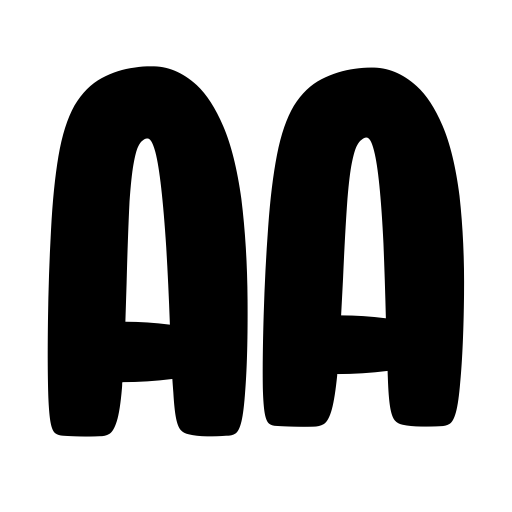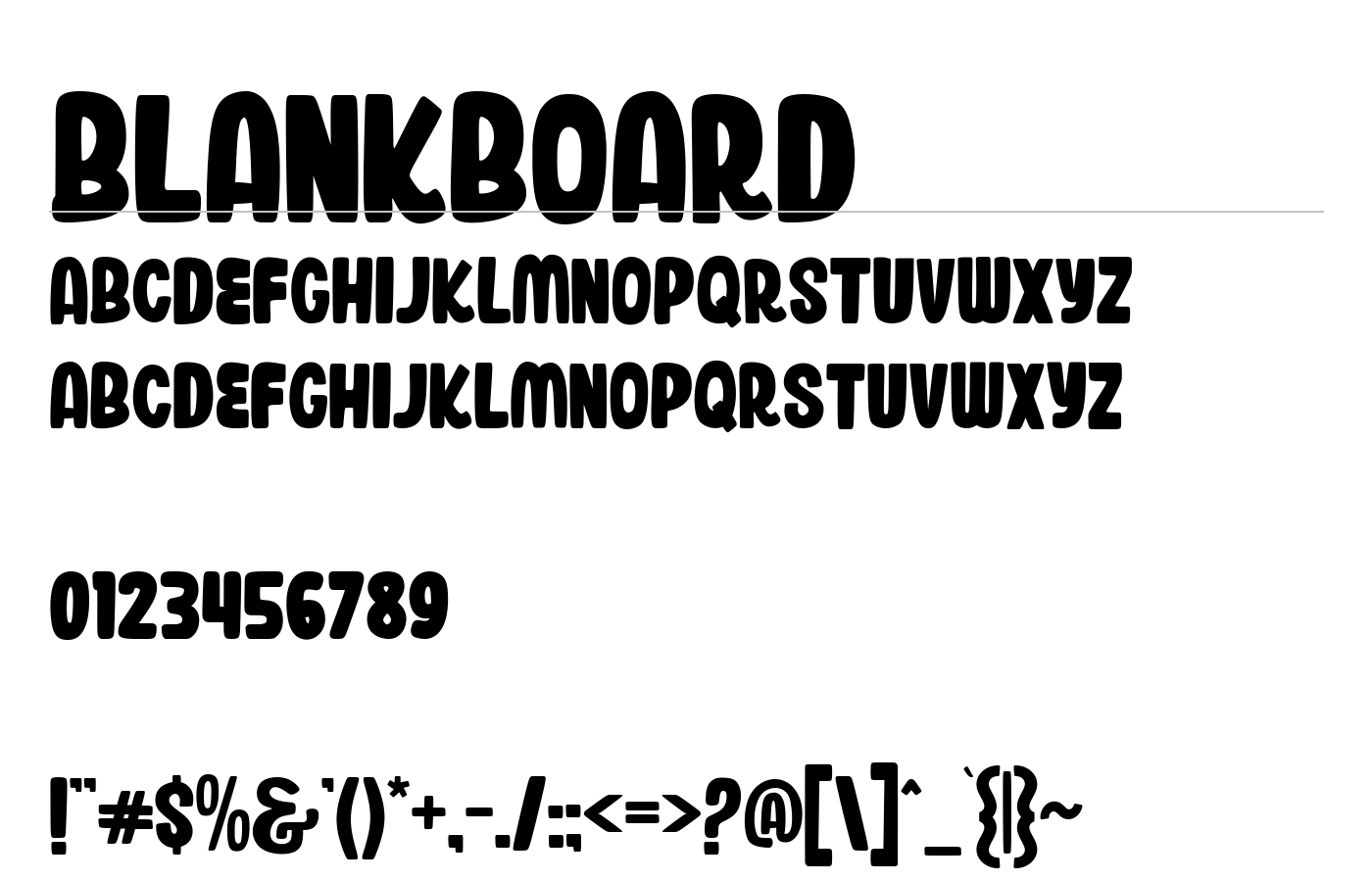
Blankboard is a bold, playful sans serif font with a chunky, rounded style that creates a friendly and approachable vibe. Its thick strokes and slightly irregular letterforms make it ideal for fun, casual designs like posters, children’s products, and branding that wants to convey warmth and energy. This font works best in headlines and display settings where its distinctive personality can shine.
Blankboard Font
About Blankboard Font
| Designer | deedeetype |